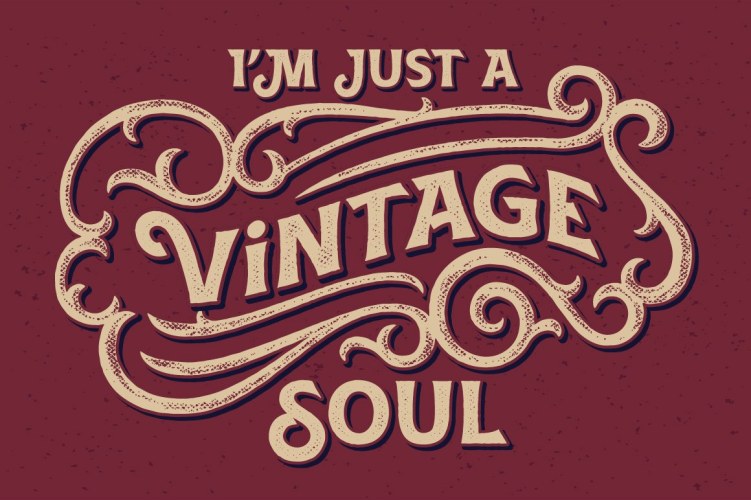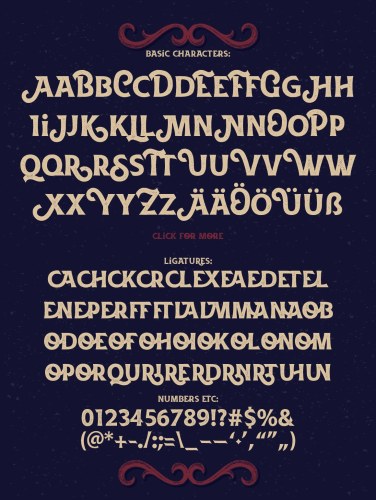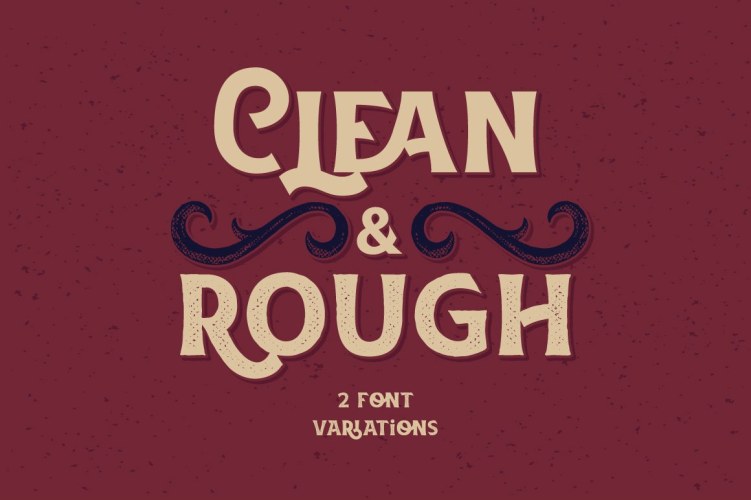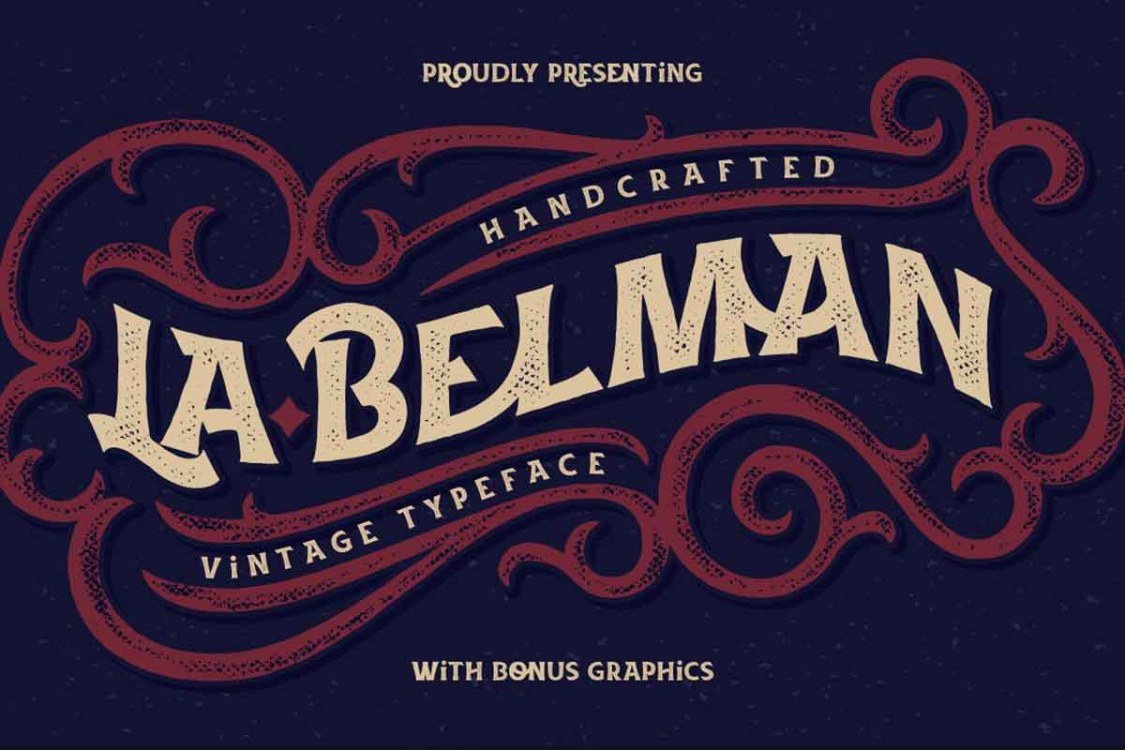
La Belman Font + Bonus
Hi! Presenting a vintage font set named La Belman. It’s a vintage typeface with rough textured effect. It also includes a clean version of this font. Lots of ligatures will help you to make your lettering more unique (all characters you can see on the 3rd screenshot). As a bonus you will get a vector template with ornate from title screenshot.
La Belman Font + Bonus is built for size: event posters, hero headlines and billboard-style layouts.
High contrast display type like La Belman Font + Bonus reads instantly in thumbnails and motion graphics.
La Belman Font + Bonus is a Display Fonts typeface tagged Clean, Display, Vintage. It works well for headlines, logos, posters, social media graphics and branding projects that need a distinctive display fonts look.